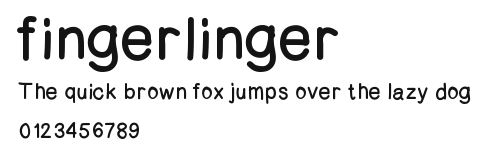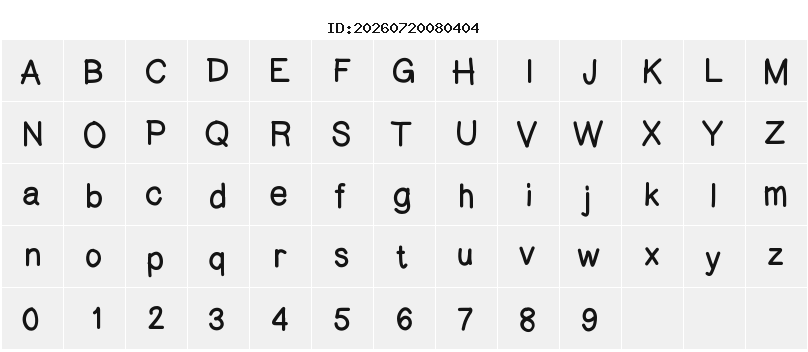
fingerlinger Preview
• Font Name: fingerlinger
• Full Font Name: fingerlinger
• PostScript Name: fingerlinger
About fingerlinger.ttf
fingerlinger.ttf is a modern, elegant sans-serif font designed for ultimate readability and visual harmony. Perfect for branding, headlines, web design, and print materials.